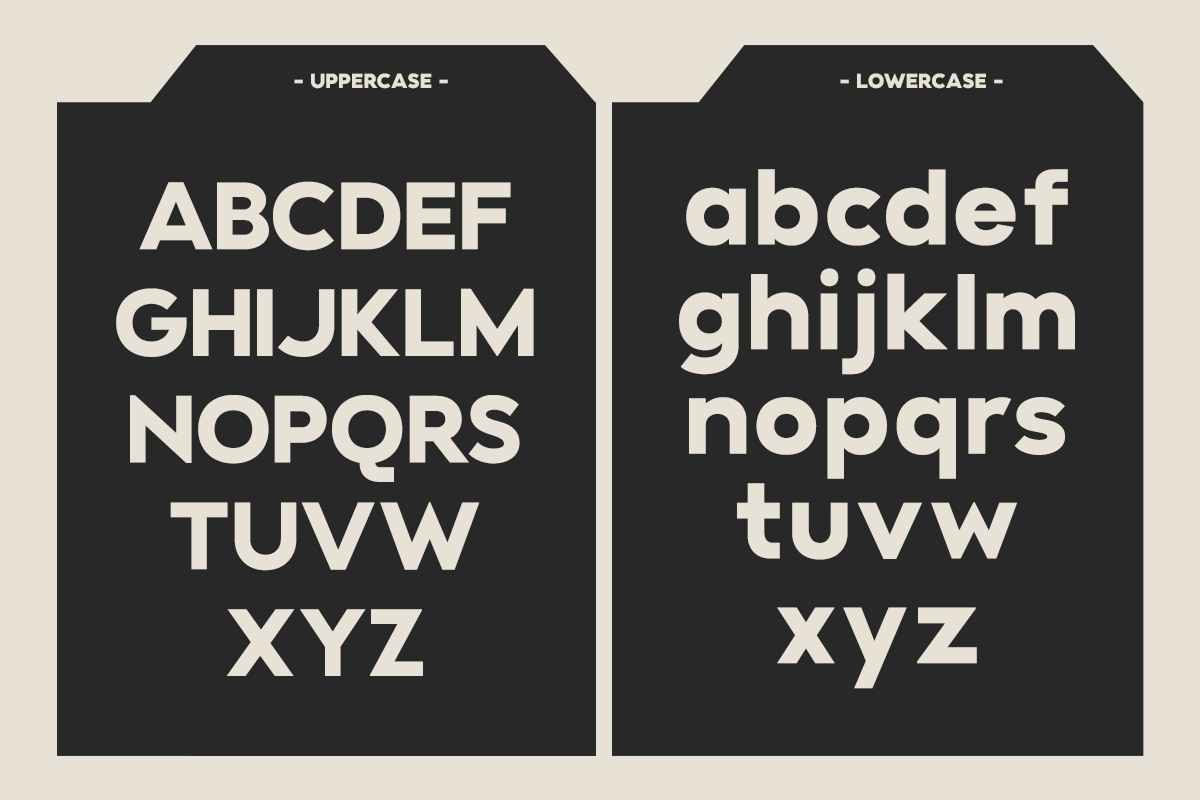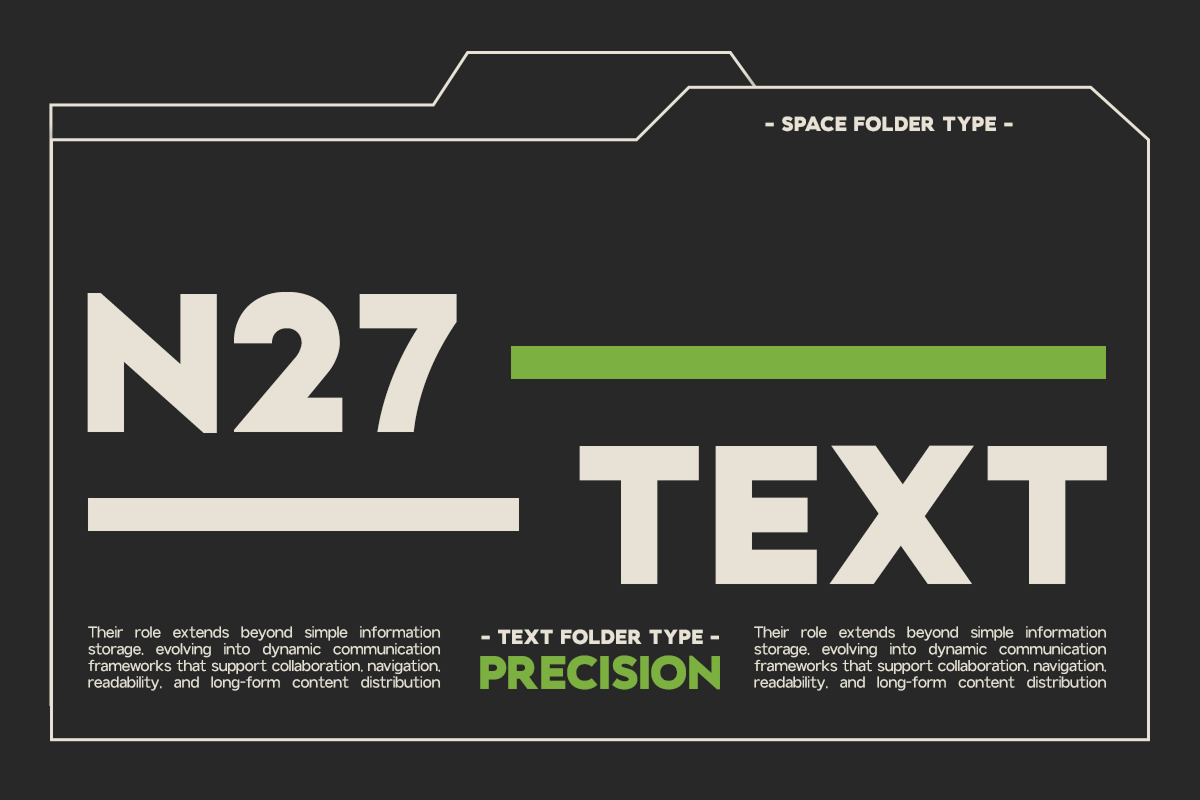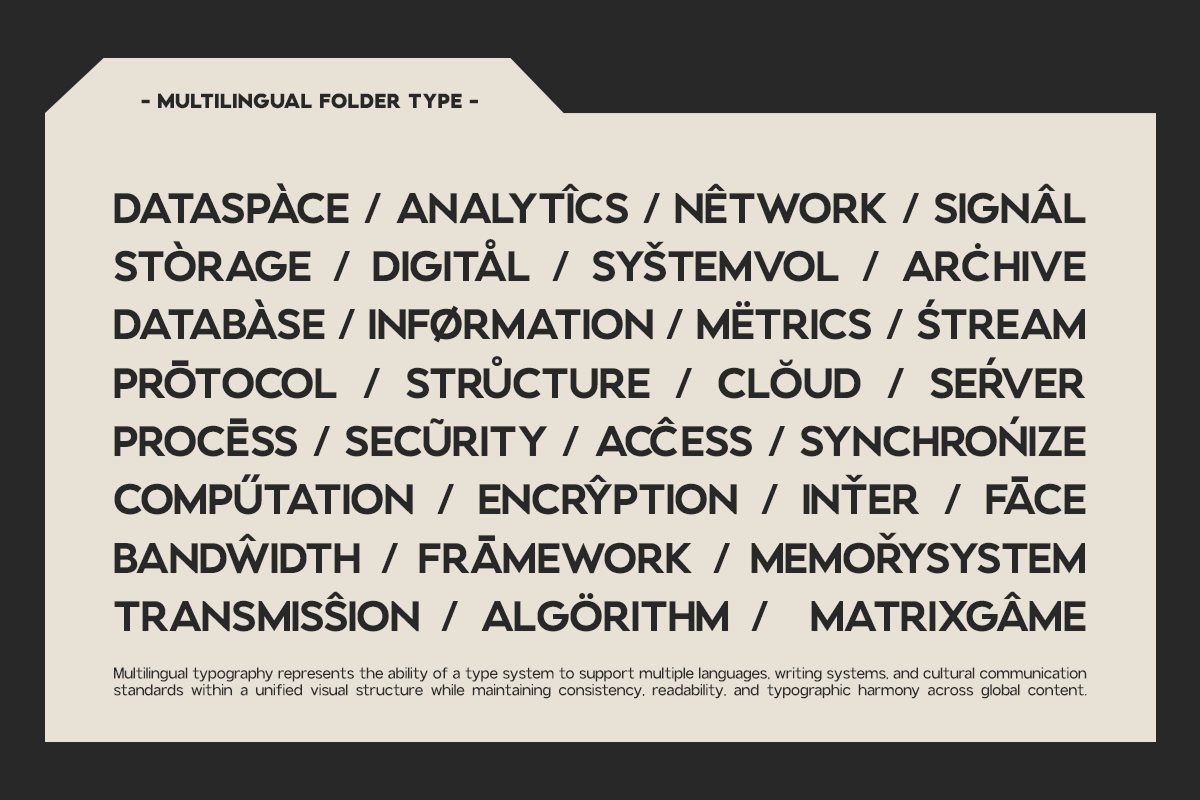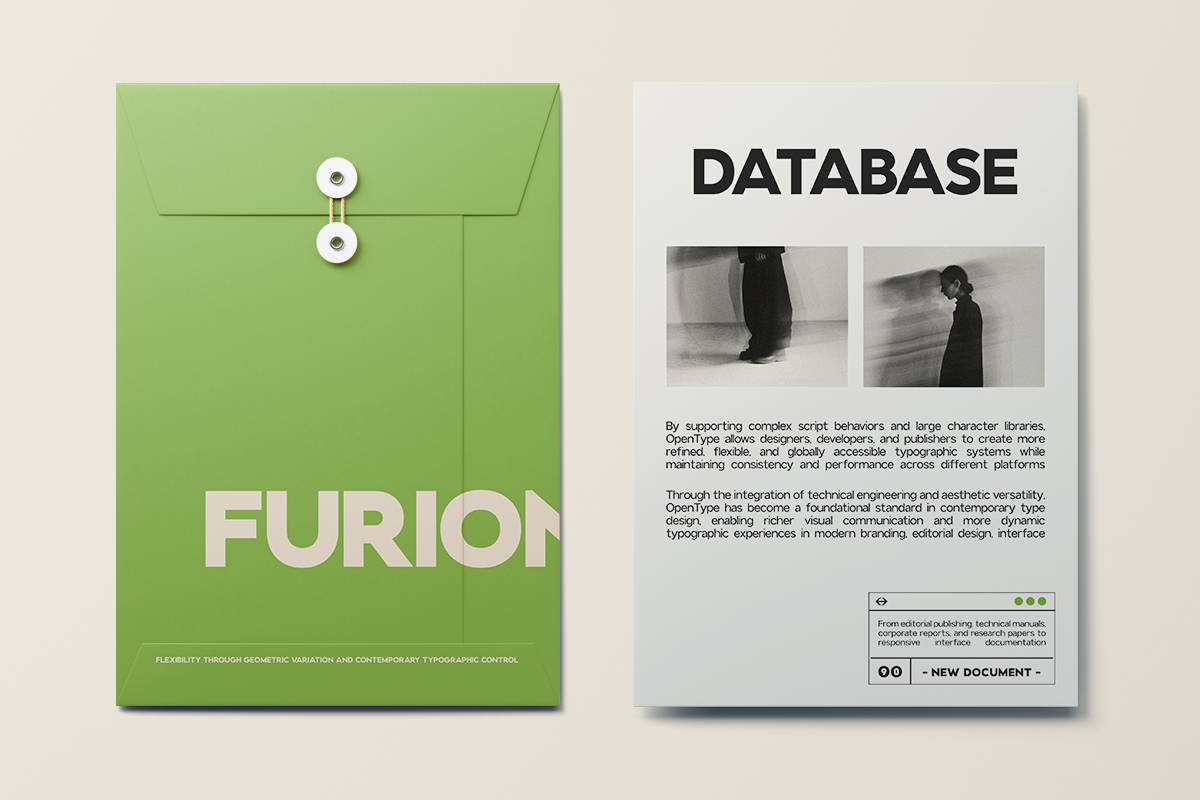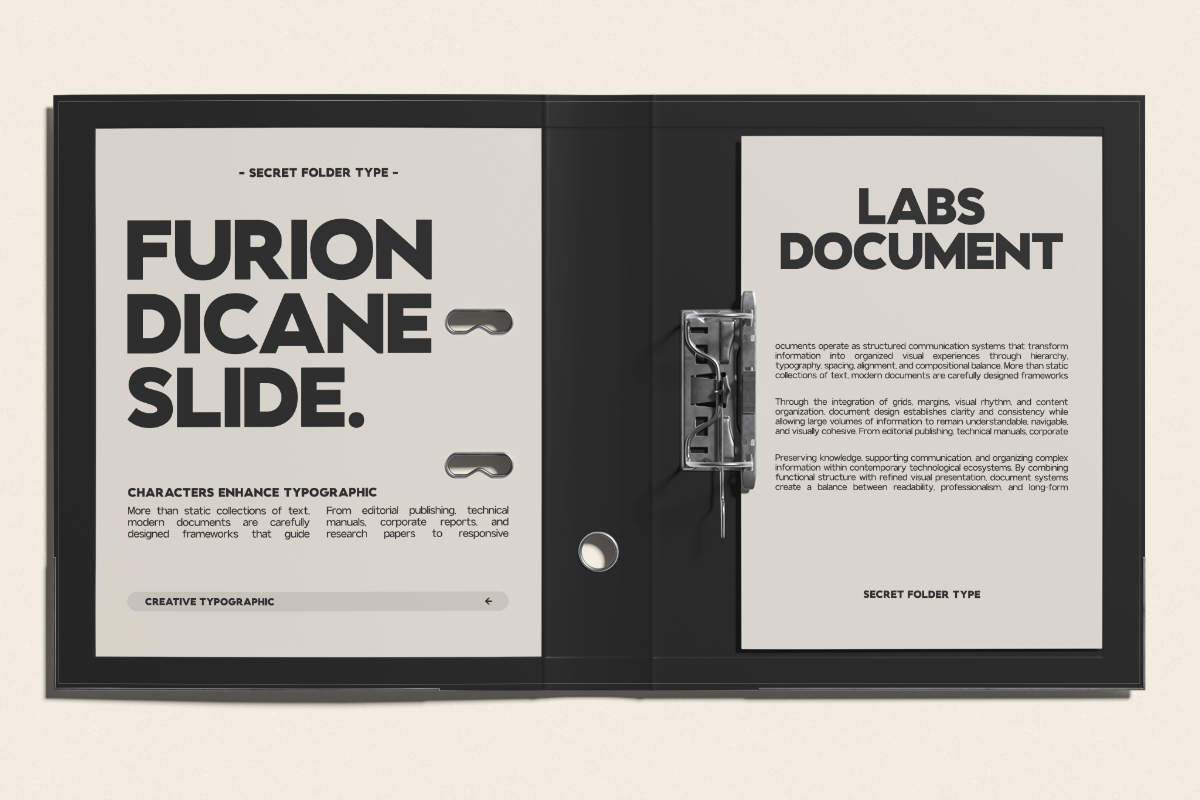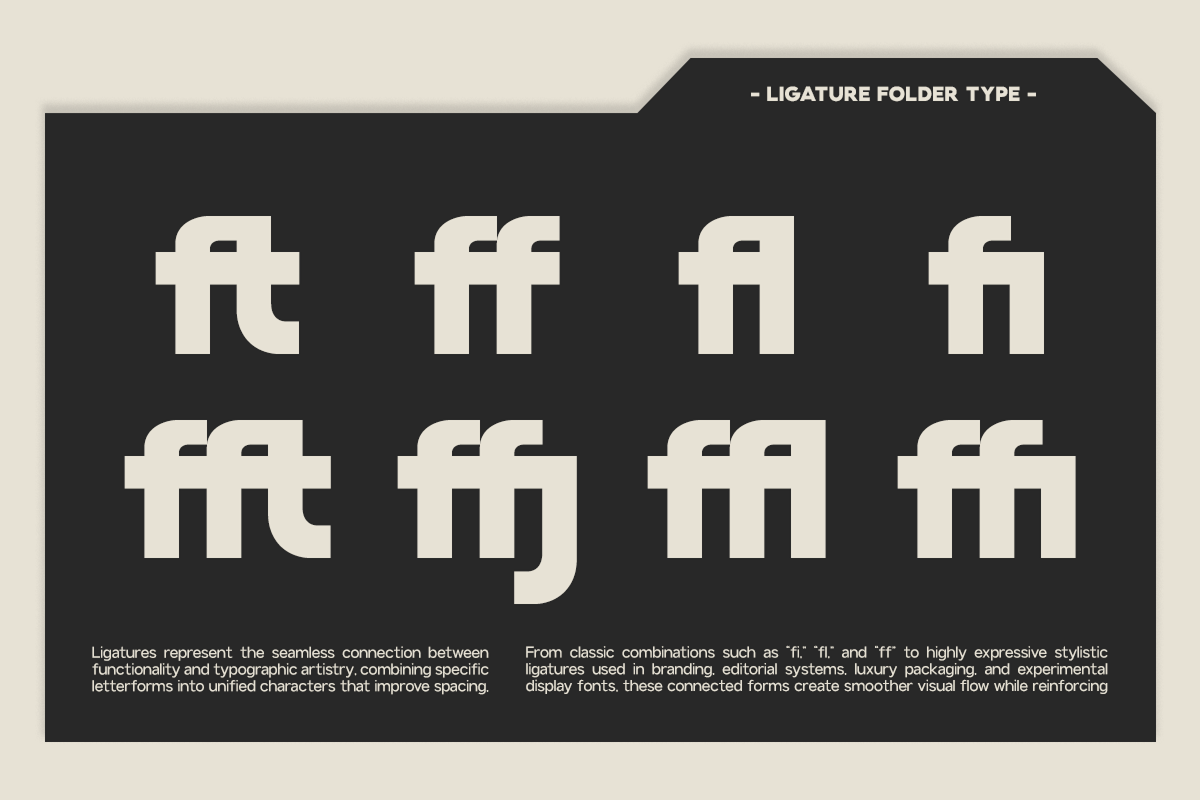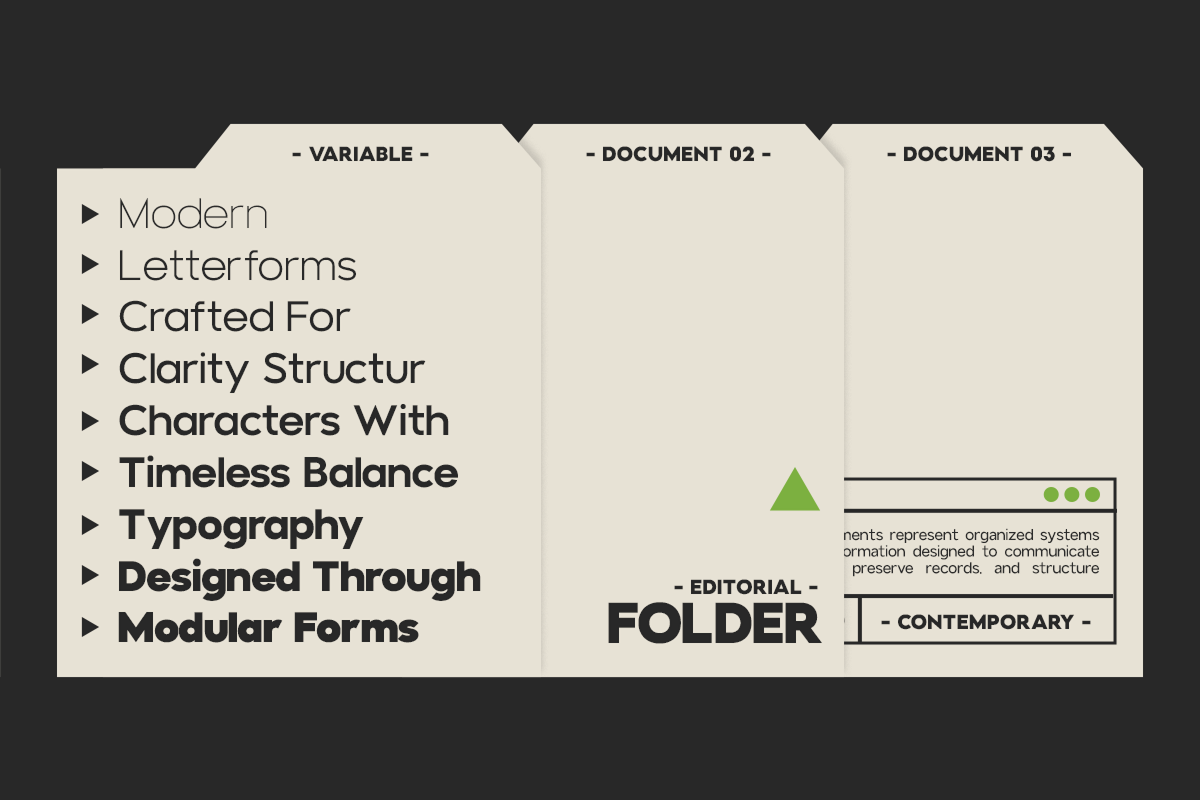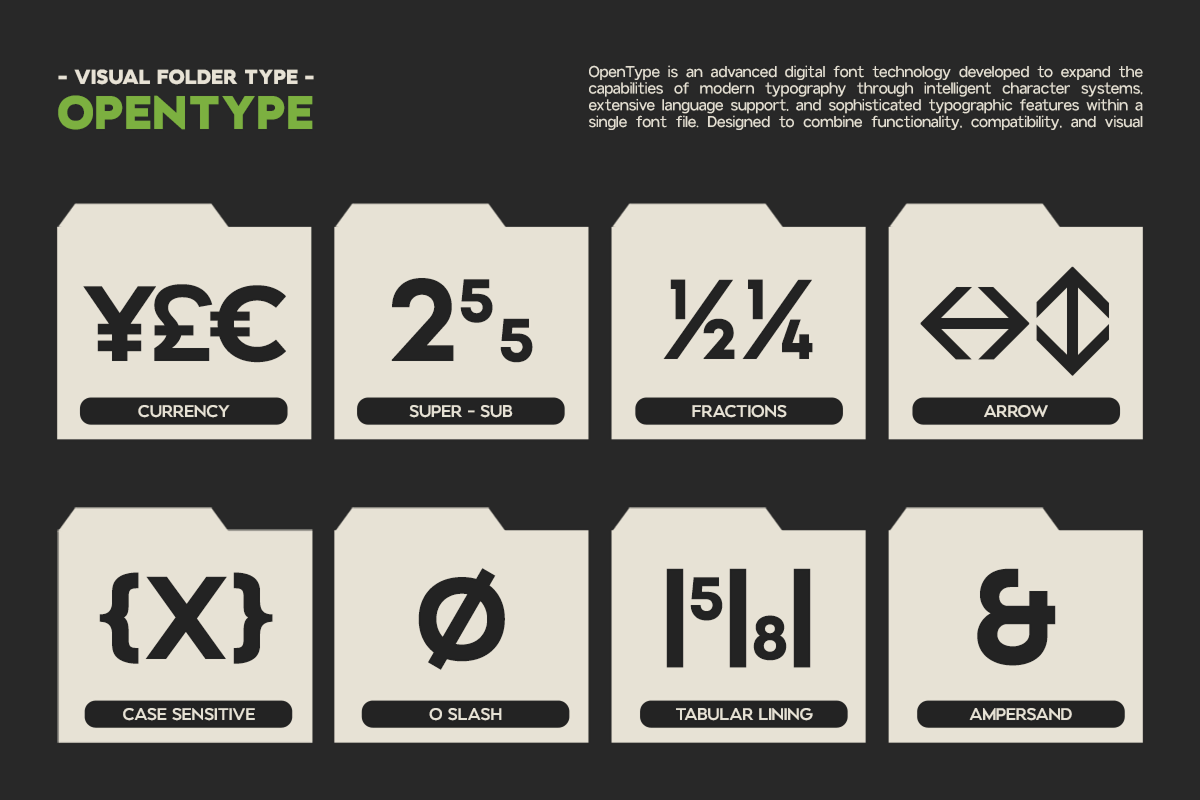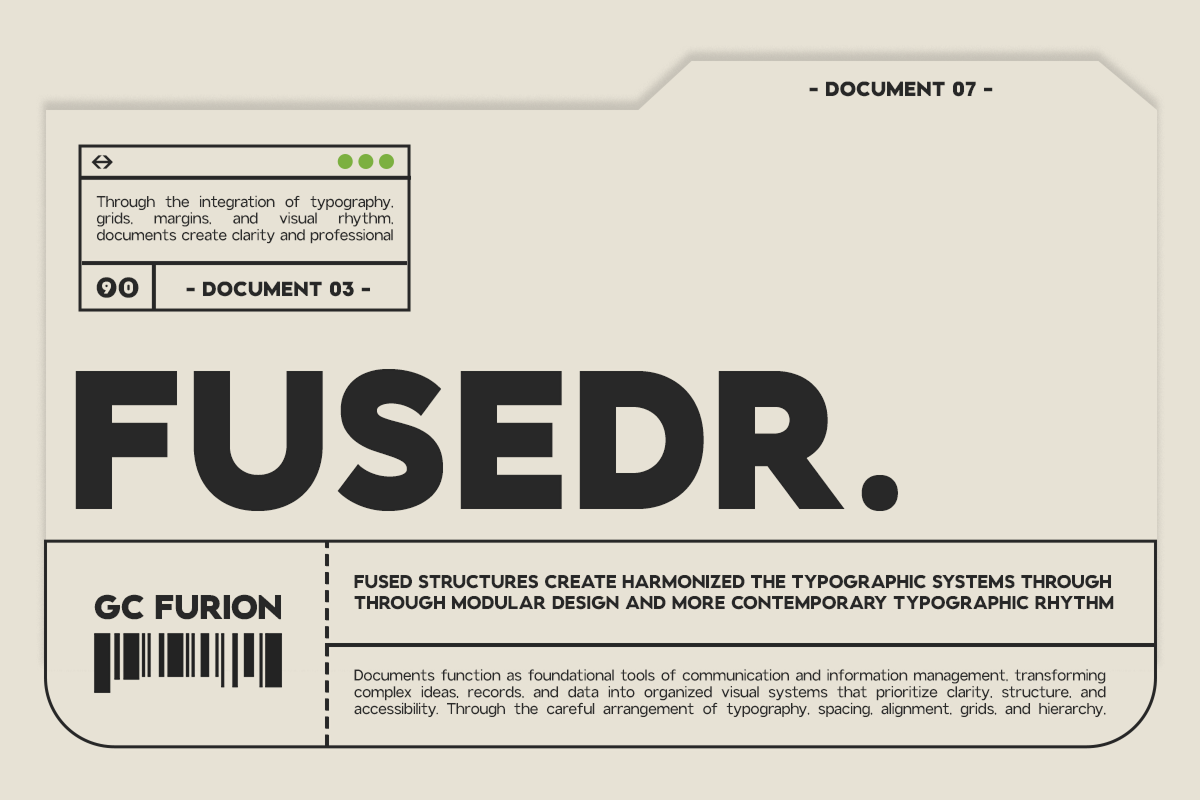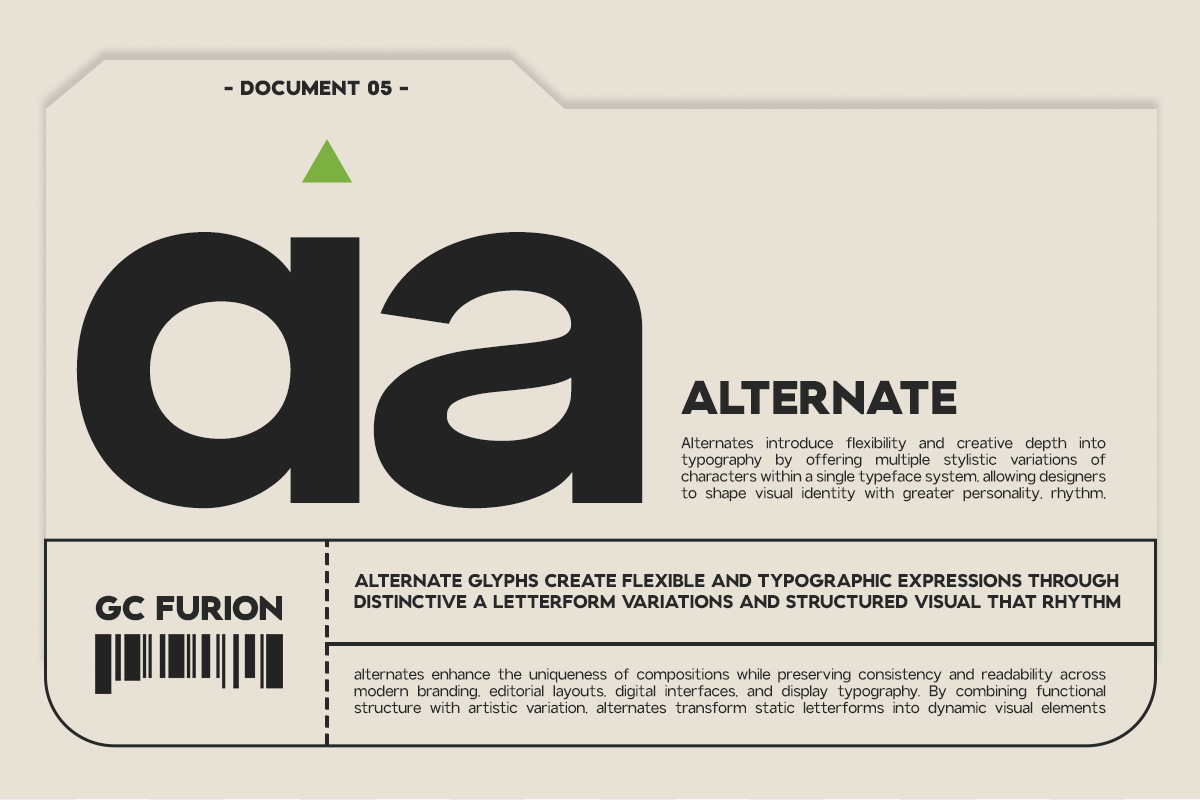
GC Furion – Modern Futuristic Sans
GC Furion – Modern Futuristic Sans is a contemporary sans serif typeface inspired by futuristic aesthetics, precision engineering, and modern digital design. Built with clean geometric forms, sharp angles, and balanced proportions, GC Furion delivers a sleek, high-tech personality while maintaining outstanding readability across every application.
Designed for brands that embrace innovation and forward-thinking visual identities, GC Furion combines minimalist structure with futuristic character. Its confident letterforms create a strong visual impact, making it an excellent choice for technology branding, gaming, automotive, architecture, UI/UX design, editorial layouts, digital products, and premium marketing materials.
As a variable typeface, GC Furion provides smooth weight adjustments, giving designers complete flexibility to build clear visual hierarchy and responsive typography across both digital and print environments. From bold headlines to sophisticated interface systems, every weight retains its futuristic identity while remaining clean, balanced, and highly legible.
Whether you're creating cutting-edge branding, sci-fi inspired visuals, modern product packaging, startup identities, or sleek web experiences, GC Furion delivers a refined combination of innovation, precision, and contemporary style.
Variable Font (Adjustable Weight Axis)
Modern Futuristic Design
Geometric Letterforms
Multilingual Support (170+ Languages)
Bring futuristic aesthetics, precision, and modern versatility to your next creative project with GC Furion – Modern Futuristic Sans.